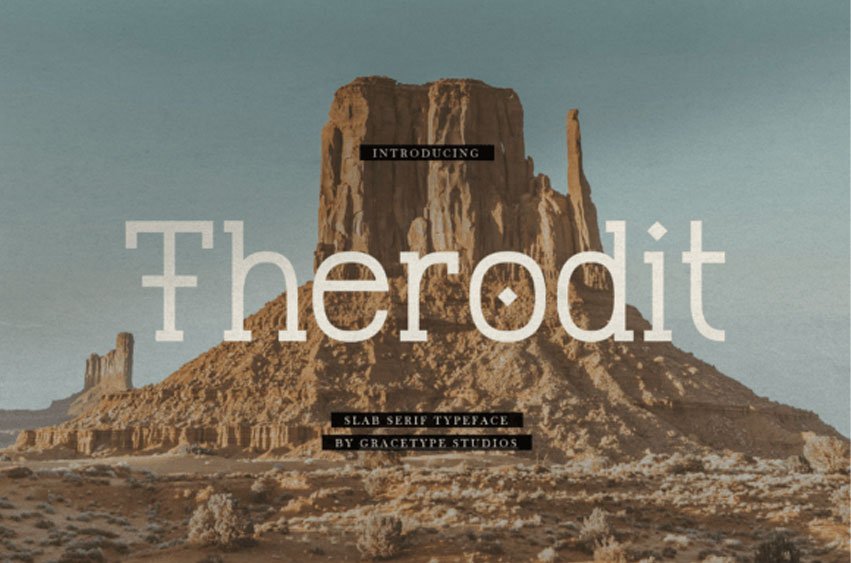
Therodit Font is a robust and evocative slab serif typeface designed to capture the rugged, enduring spirit of the frontier.
Characterized by its sturdy, balanced proportions and distinctive geometric details, this font strikes a perfect harmony between industrial strength and artisanal character.
Its clean, impactful presence makes it an exceptional choice for outdoor lifestyle branding, cinematic adventure titles, artisanal product packaging, and modern Western-inspired editorial layouts.
Therodit delivers a sense of permanence and reliability, perfect for brands that value authenticity and a bold, grounded aesthetic.